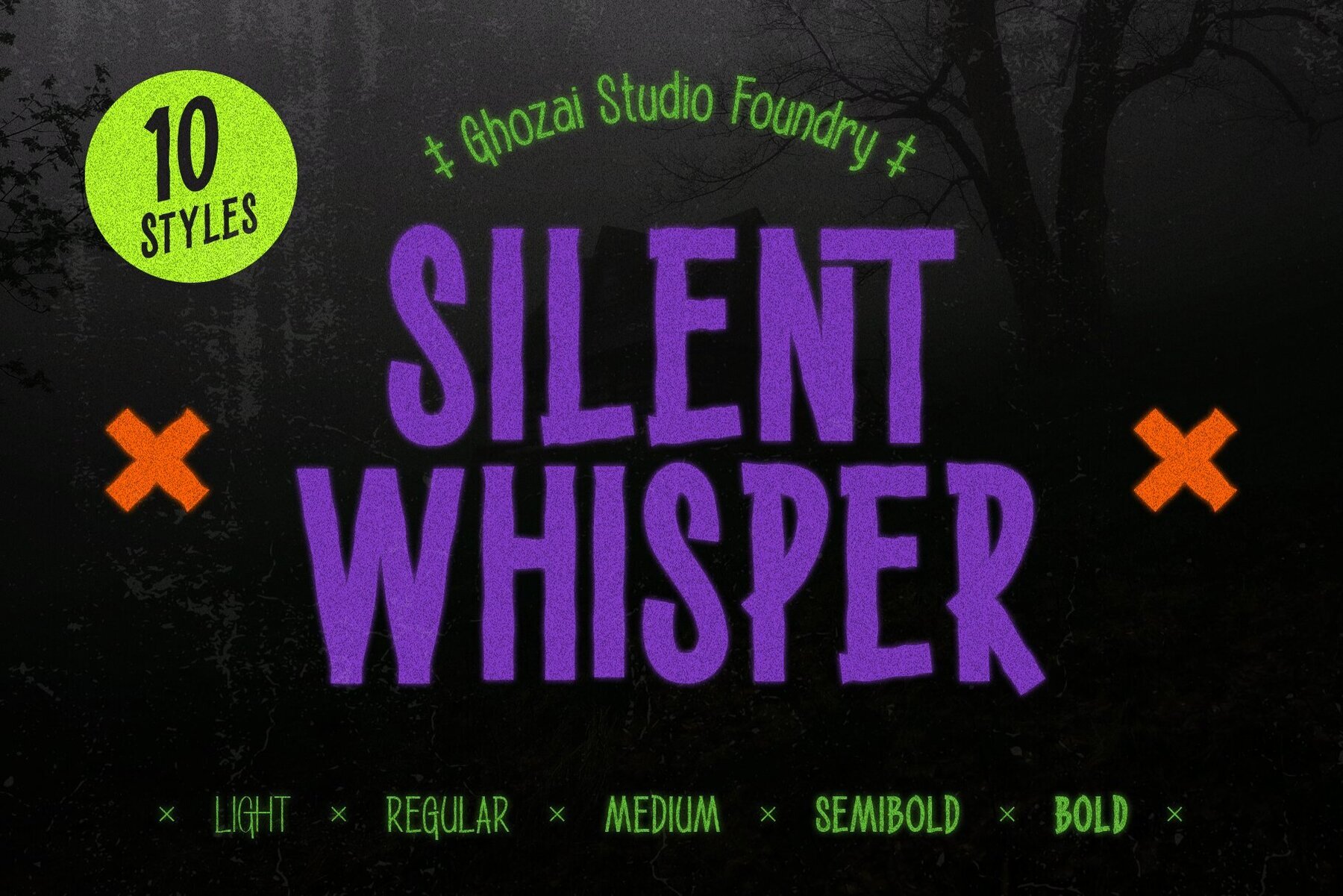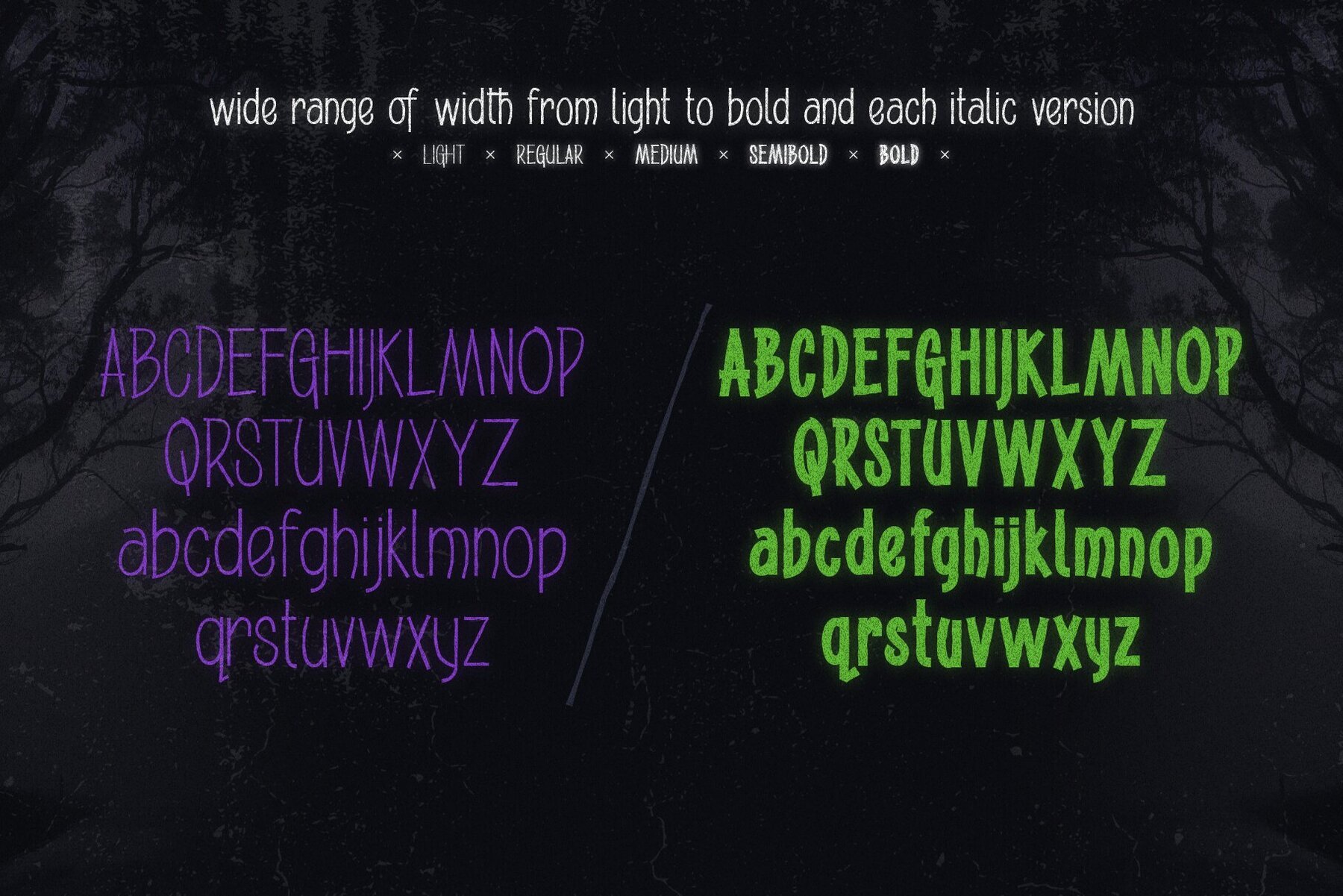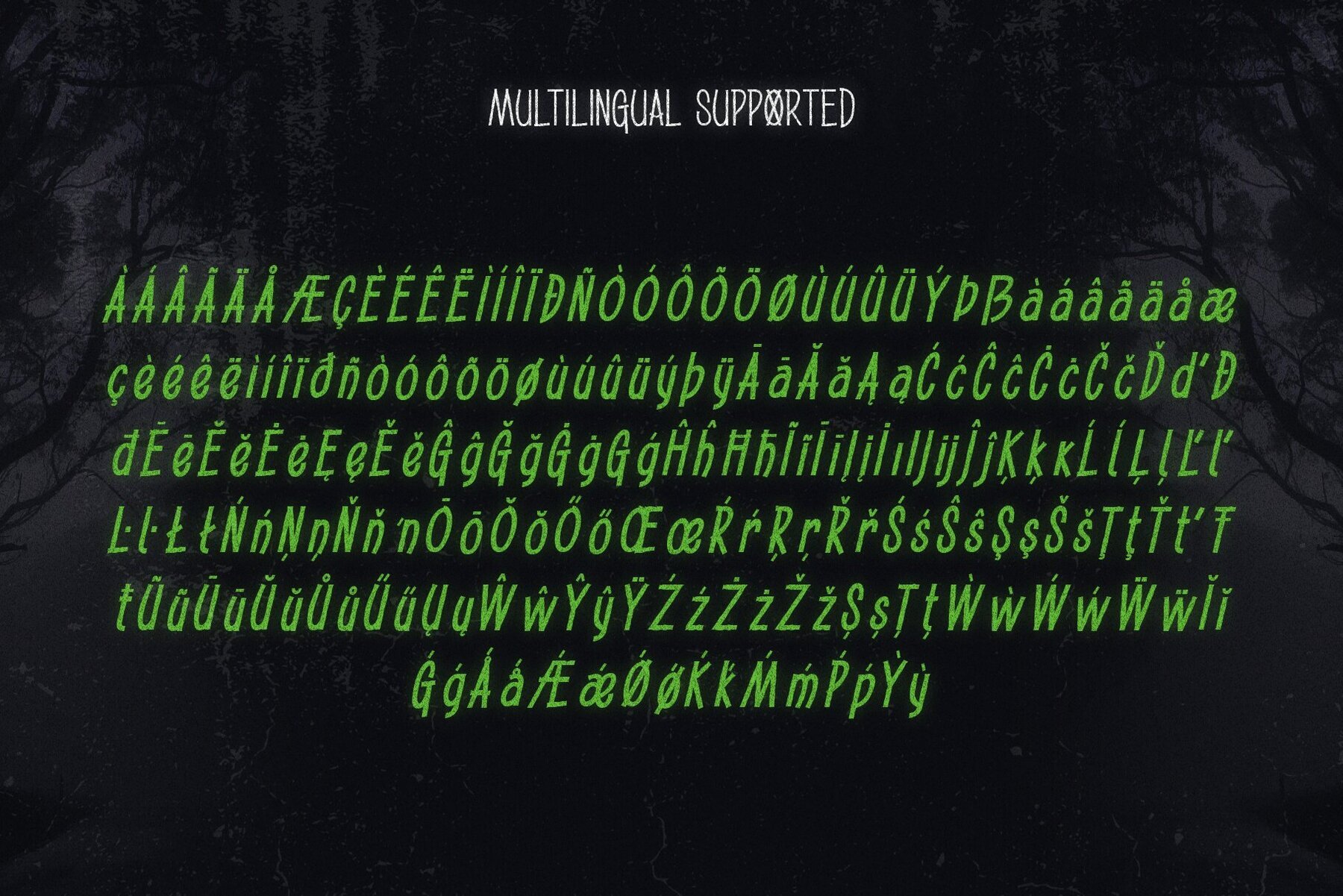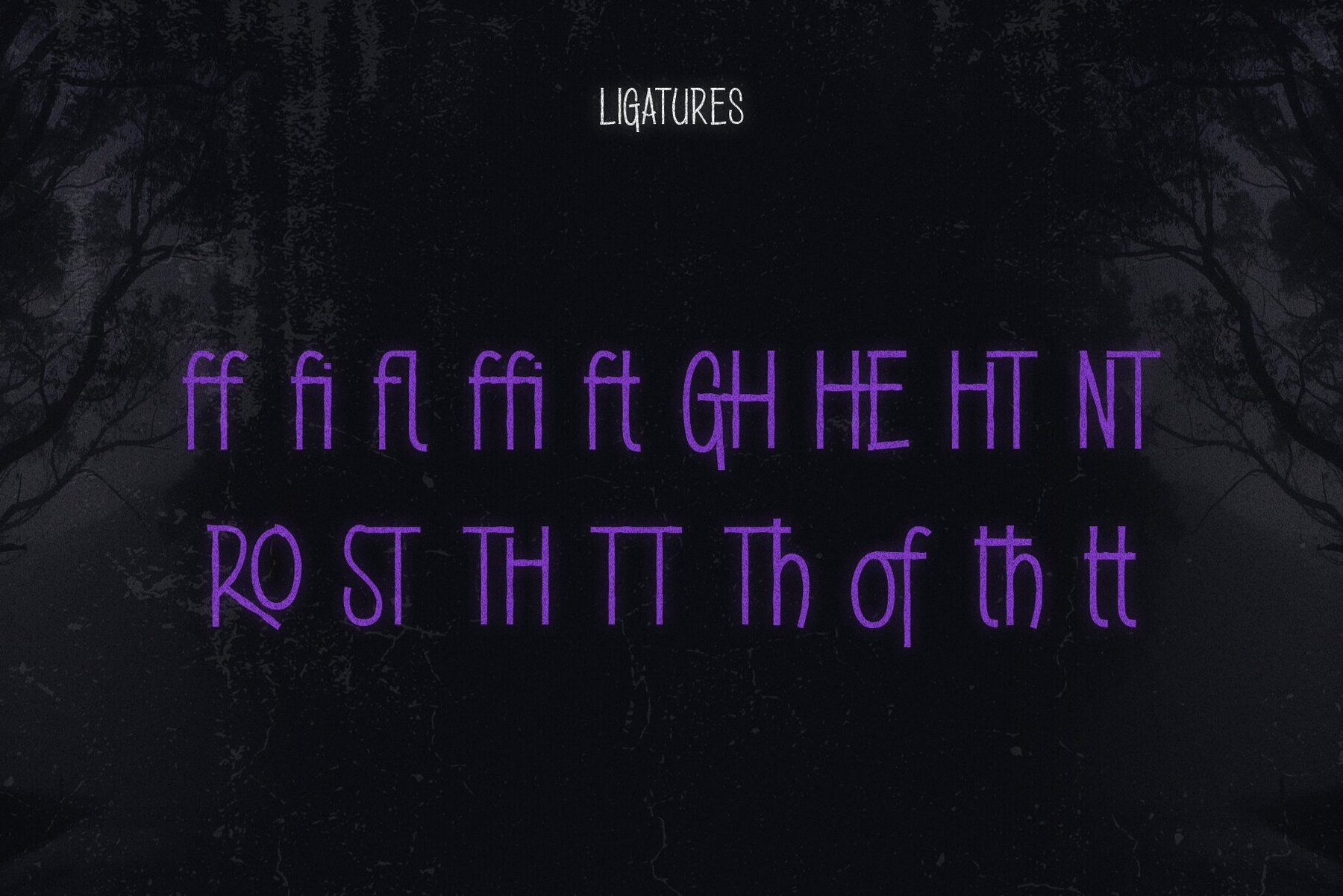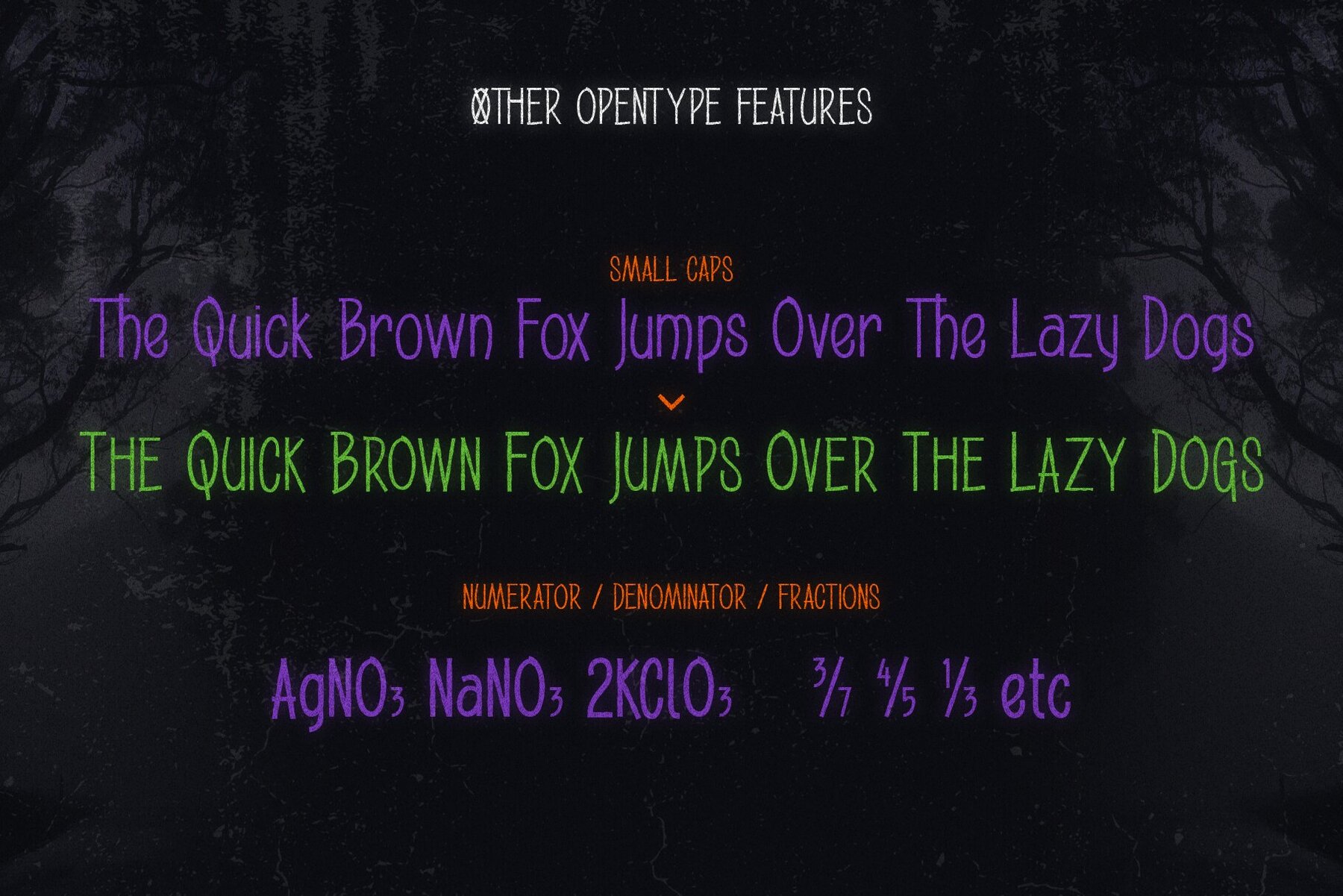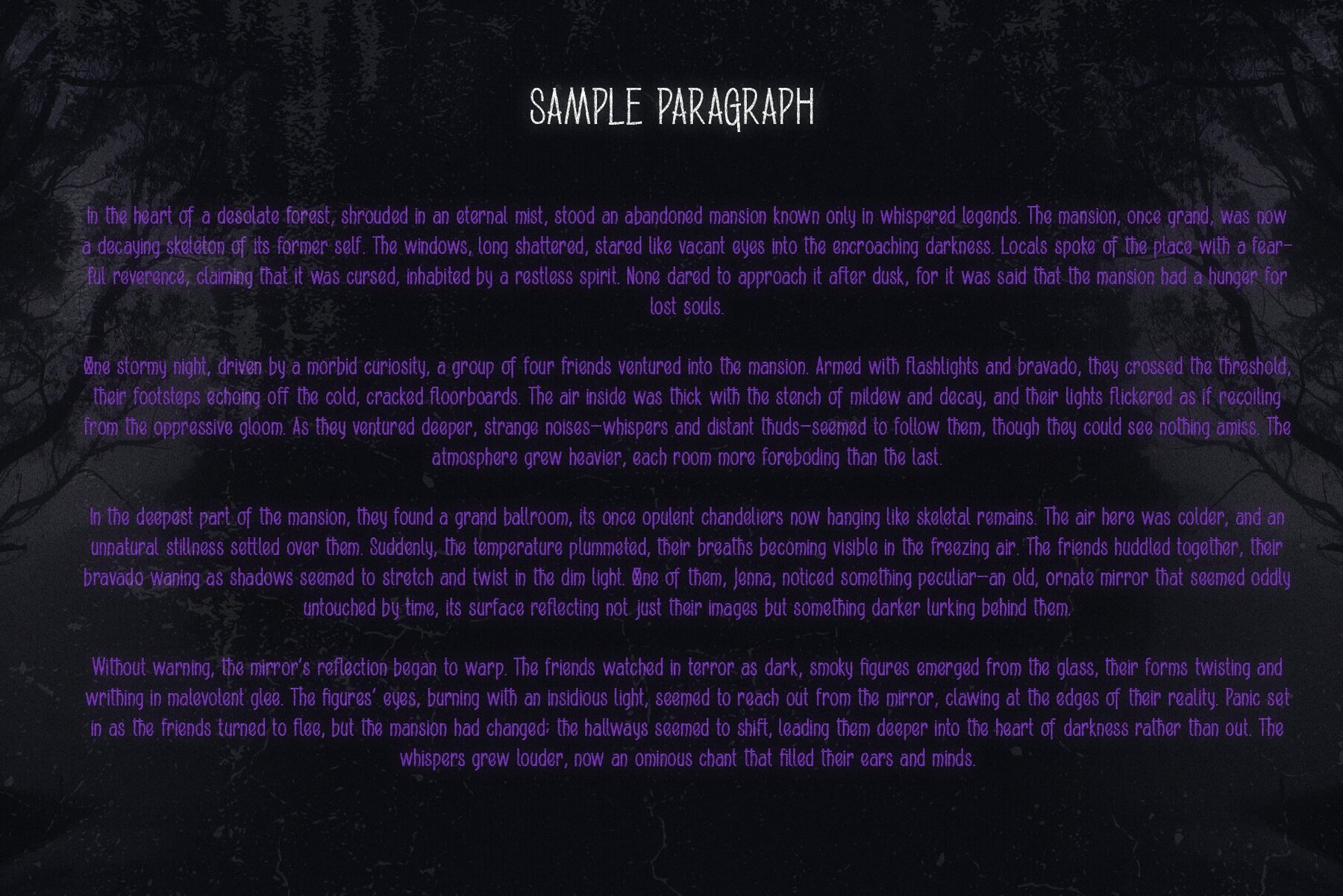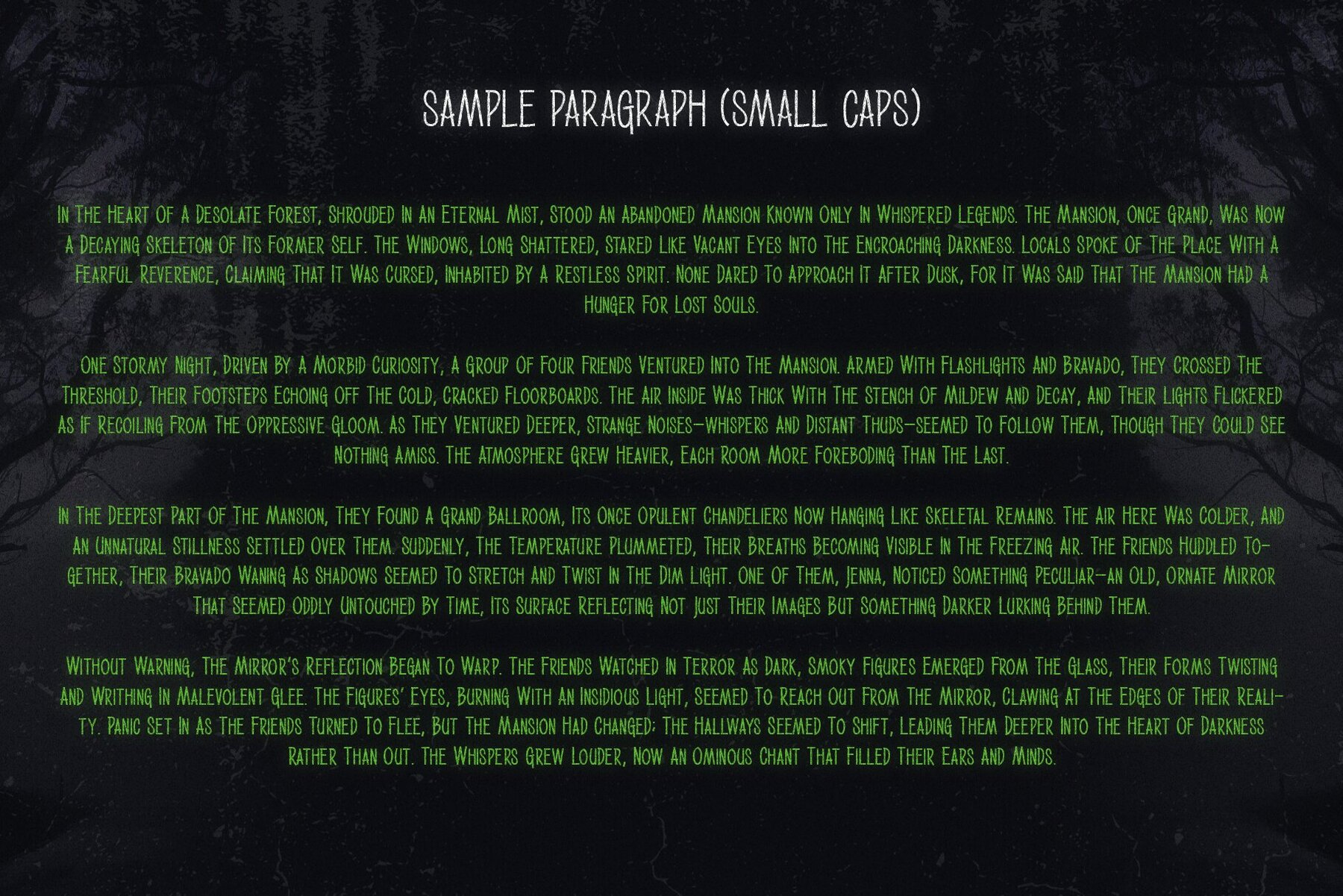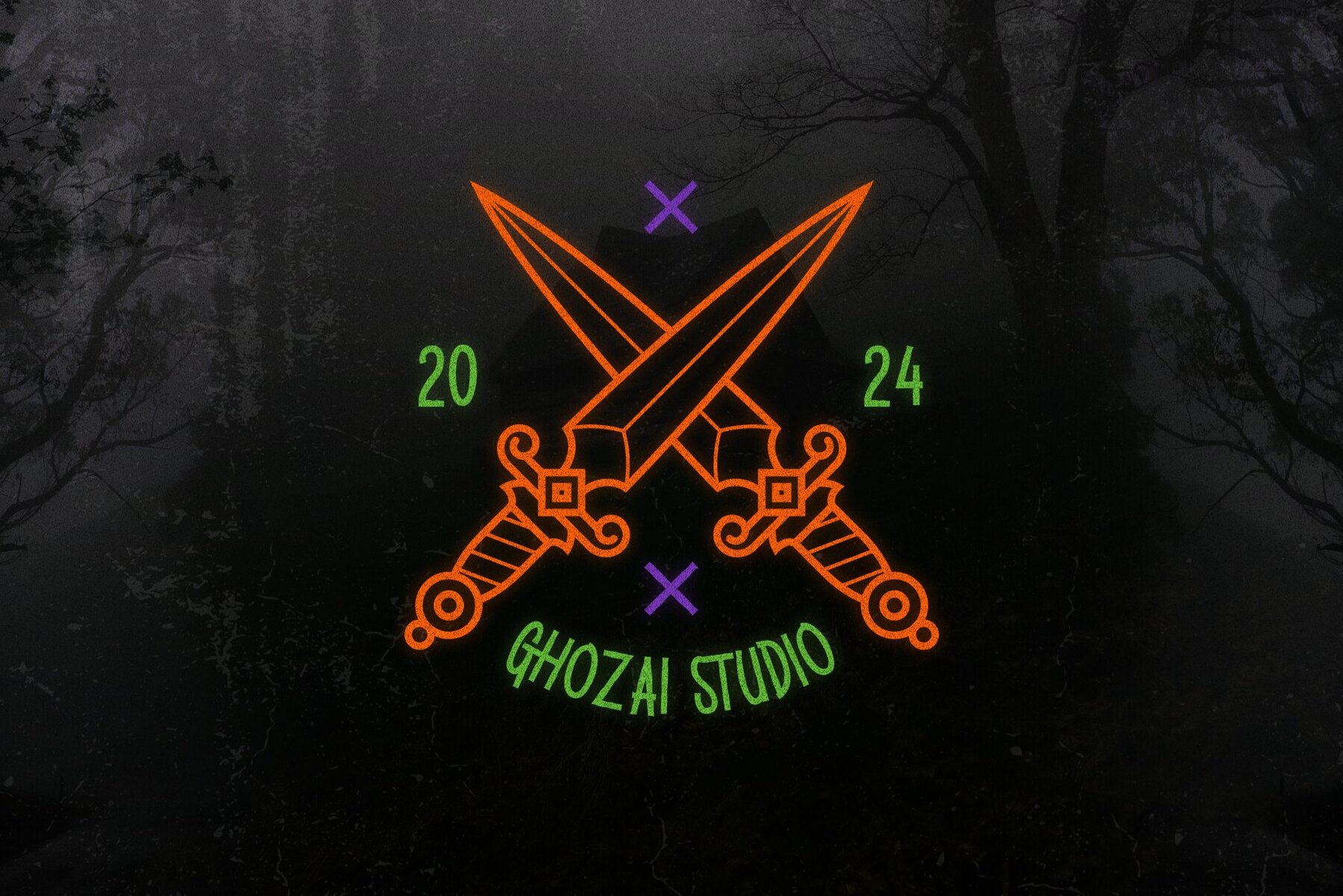
Silent Whisper Font
Silent Whisper is a simple horror font display. Silent Whisper comes in a wide range of styles, 10 styles (5 plains and 5 italics), from thin to bold, and the italic version. Silent Whisper is also supported with many Opentype features and is multilingual to support any needs.